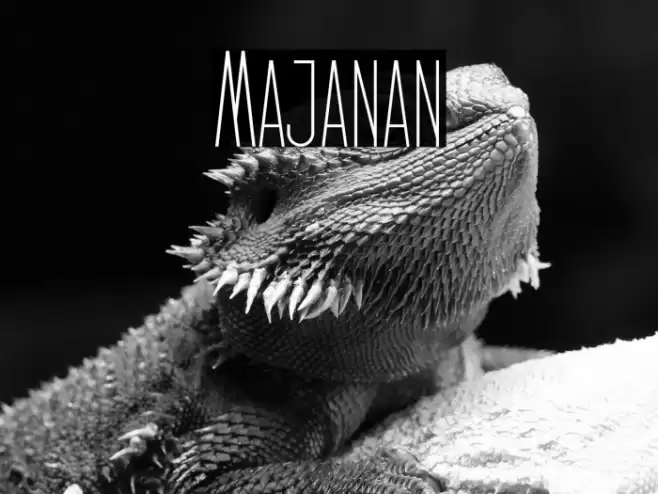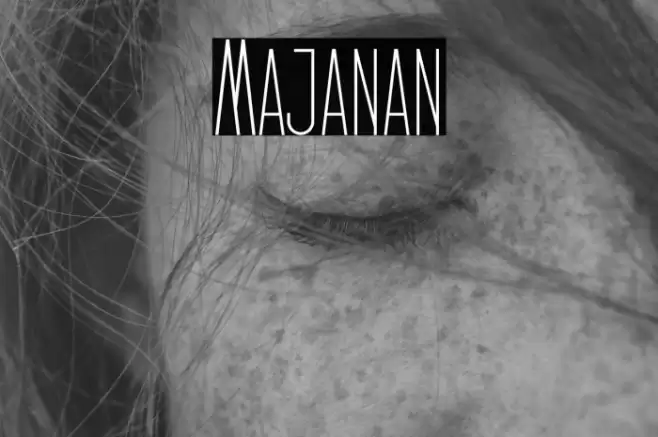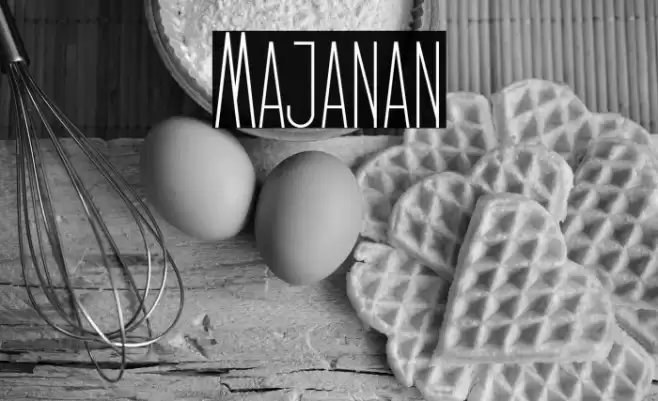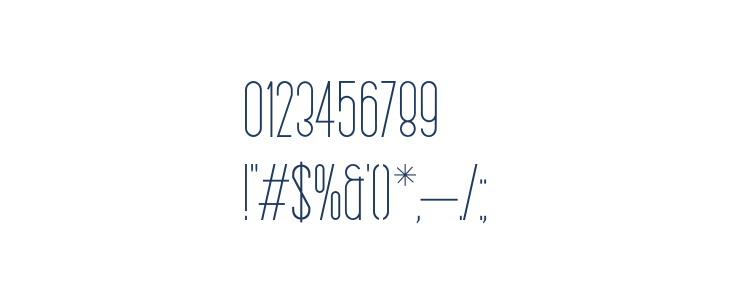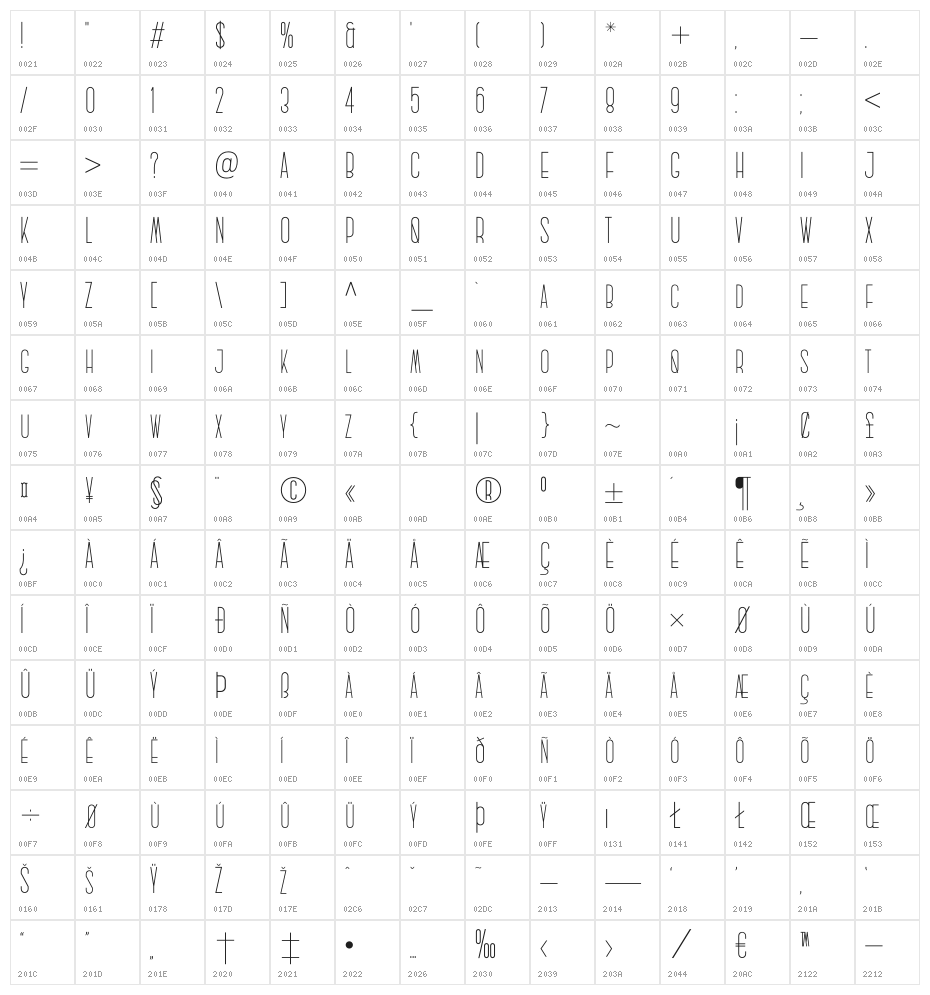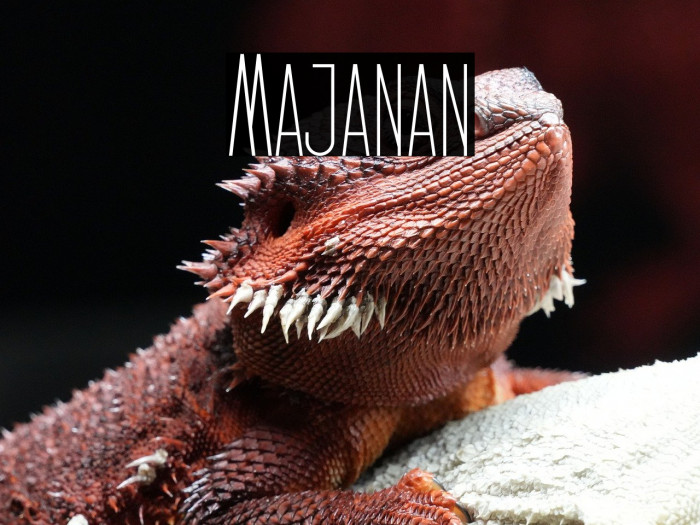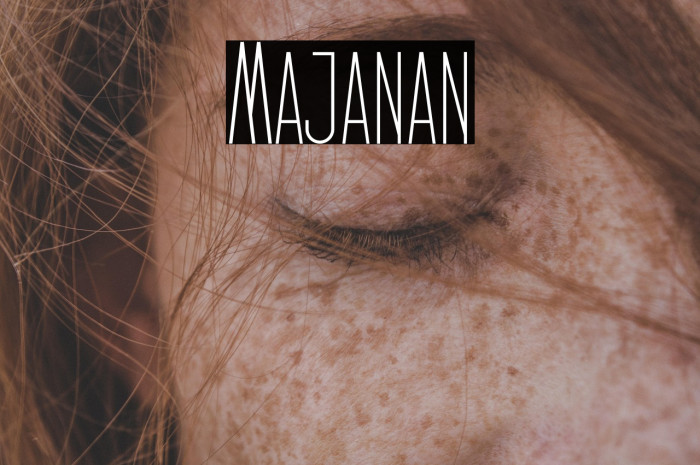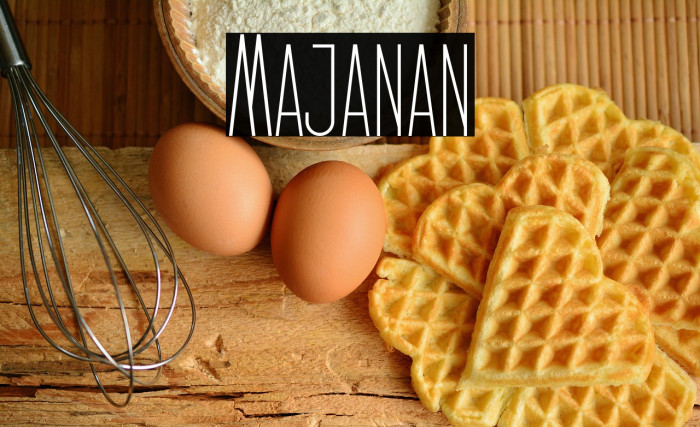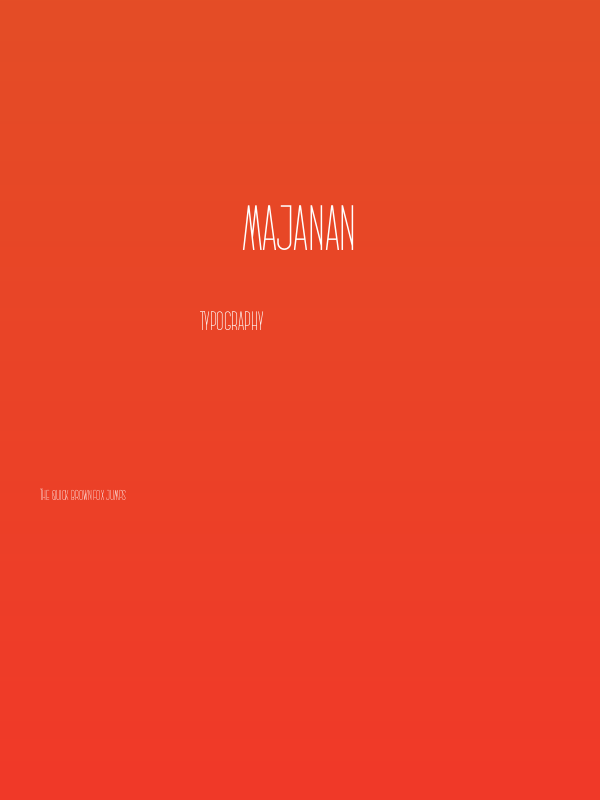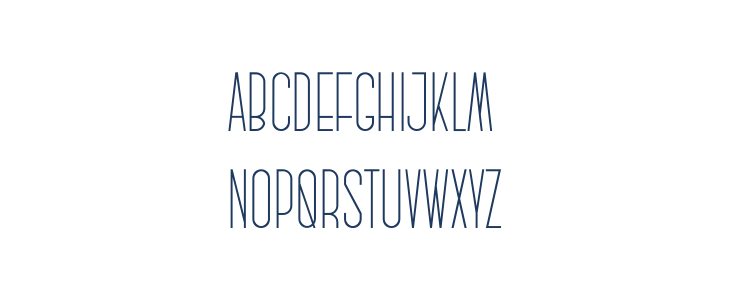
Majanan Font
Majanan Description
This font features a modern and sleek design with tall, narrow characters that give it an elegant and sophisticated appearance. The uppercase letters are particularly elongated, creating a sense of height and refinement. The lowercase letters maintain this tall structure, ensuring consistency throughout the typeface. The numerals are similarly styled, providing a cohesive look across all characters. The special characters are well-integrated, matching the overall aesthetic of the font. The thin strokes and minimal contrast contribute to its contemporary feel, making it suitable for a variety of design applications.
A modern, tall, and narrow font with minimal contrast and sleek design from Regular fonts.
- Proposed Projects: Ideal for fashion magazines, luxury branding, modern websites, and minimalist design projects.